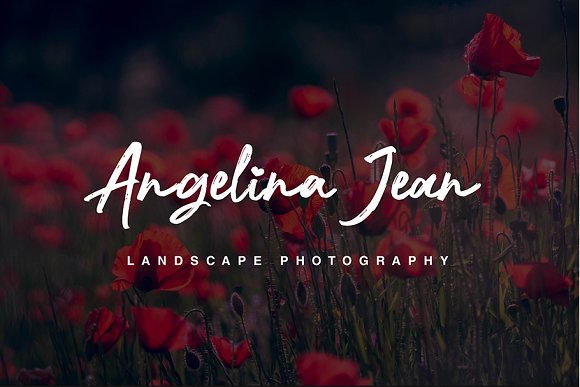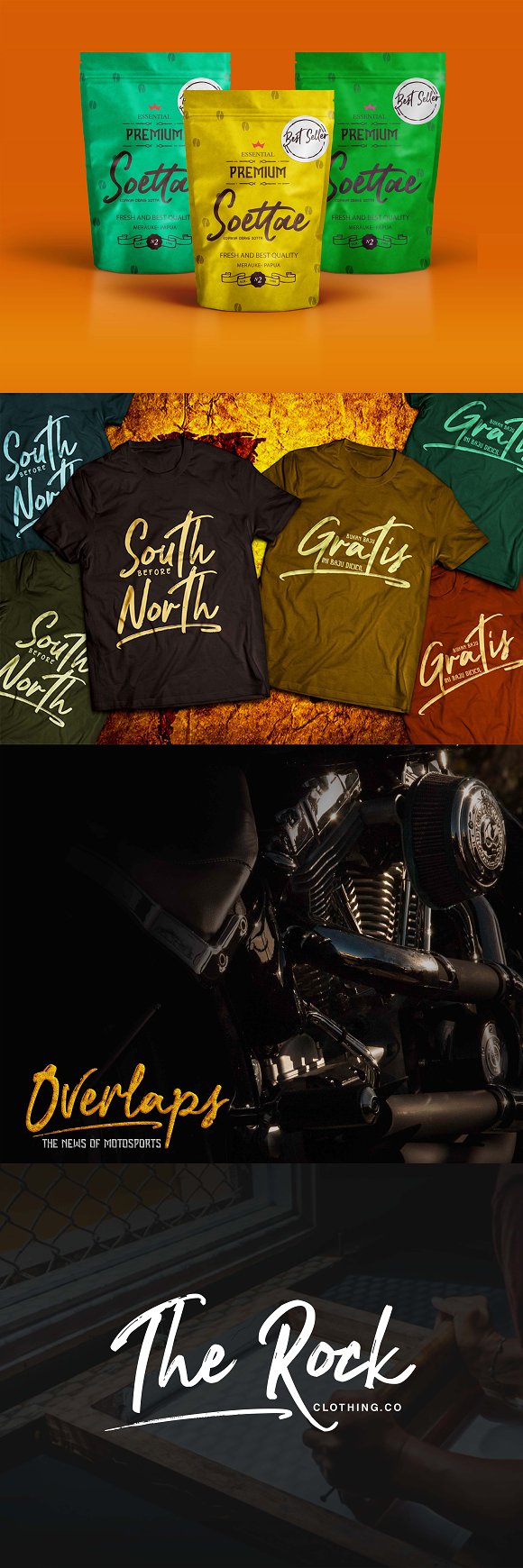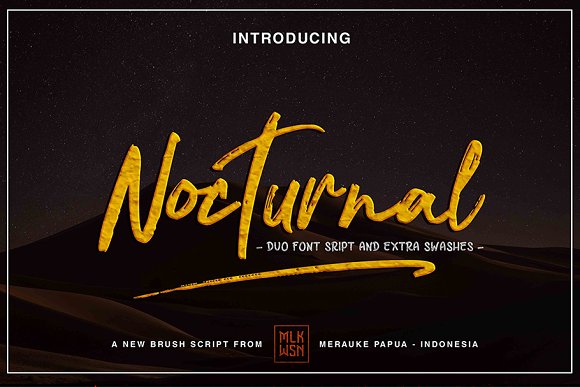
Nocturnal Script
Nocturnal Script Font
Nocturnal consists of 2 fonts and extra swash equipped with international language Our latest fonts support all your design needs that have artificial tastes, look stylish and elegant Nocturnal is Perfect for Product Packaging,product design , label,logo,photography,invitation,branding,stationery, and any projects